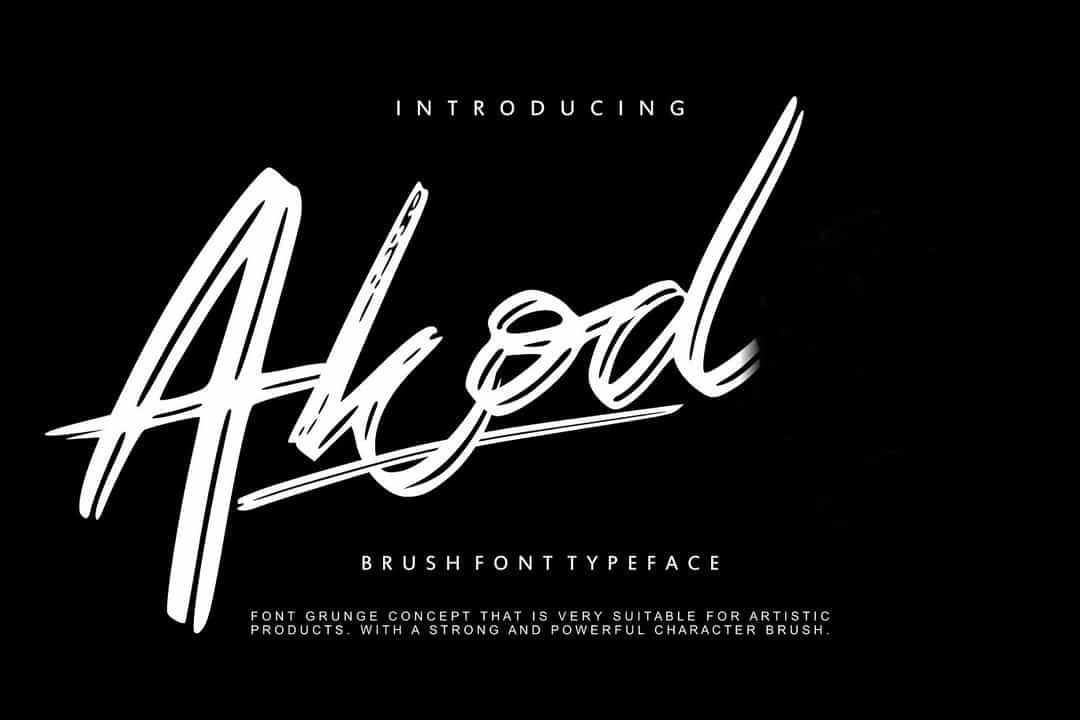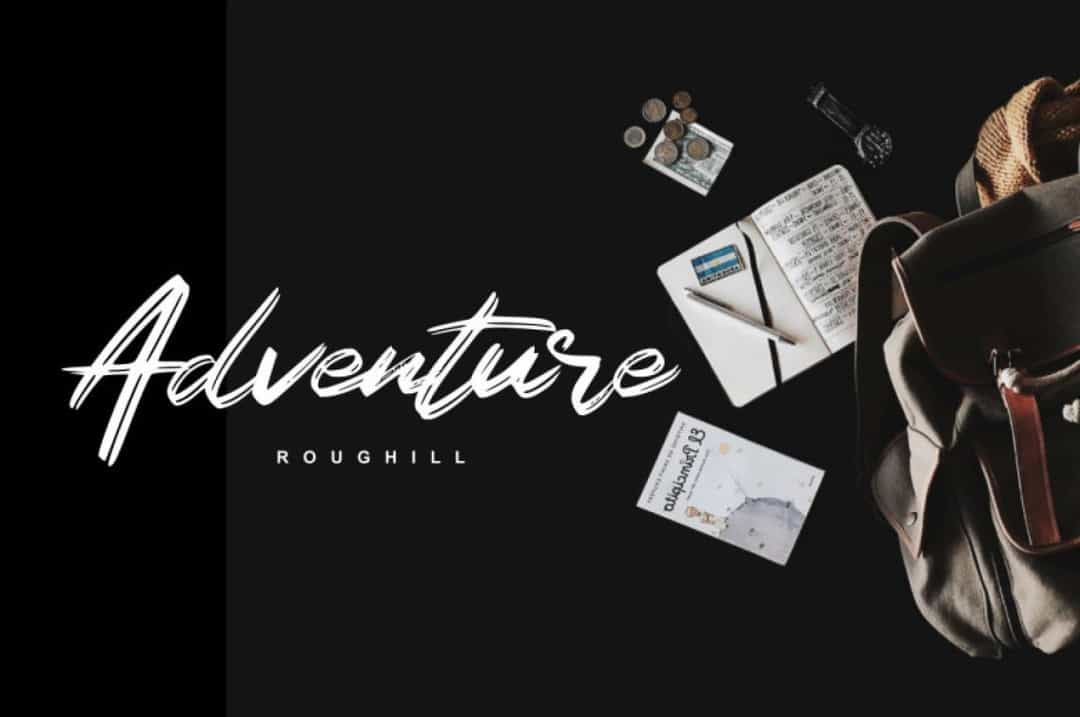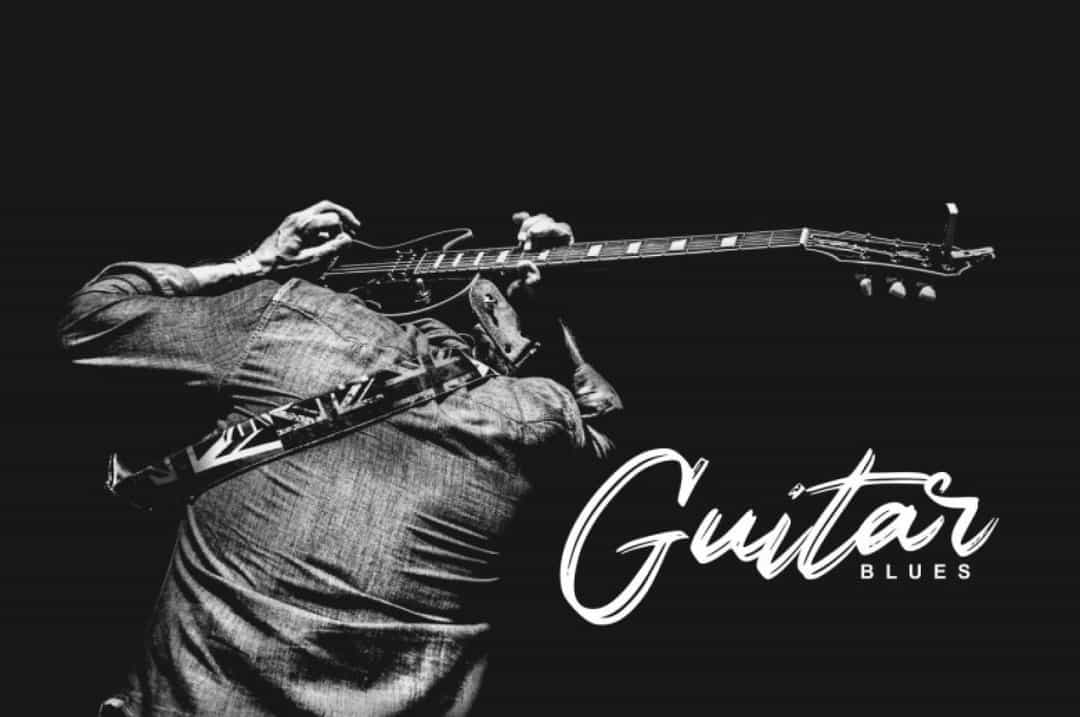
Akod is a beautiful handwritten brush font that includes the lowercase lettering, the capital letters, the multilingual numerals, the currency figures and the punctuation marks. Best for posters that include logos, logotypes, storefronts, insignias T-shirt designs, label flags, and magazines, among other design requirements.